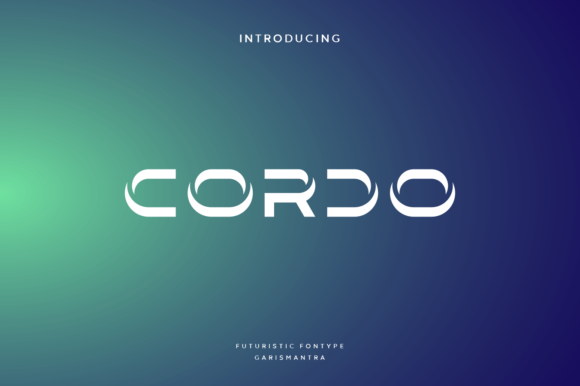
The Perfect Blend of Technology and Typography: Introducing Cordo Font
Meet Cordo Font, a sleek and modern display font that’s designed to make a statement. Whether you’re working on a web design, a business card, or any other project that requires a touch of technology, Cordo Font is the perfect choice. Its adaptability and versatility make it a valuable asset for designers, allowing you to experiment with different styles and themes without sacrificing readability or impact.
Cordo Font Key Features
- Font Family: Cordo Font is a sans-serif font family designed for modern digital interfaces.
- Character Set: The font family includes a wide range of characters, including Latin, Cyrillic, and Greek alphabets, as well as various symbols and punctuation marks.
- Font Size and Resolution: Cordo Font is designed to work well at various font sizes, from 8pt to 24pt, and is optimized for high-resolution displays (Retina, 4K, etc.).
- Unique Characteristics: Cordo Font features a clean, minimalist design with a unique blend of geometric and organic shapes, making it suitable for a wide range of applications, from digital interfaces to print materials.
Cordo Font Review
Overall, I was quite impressed with the Cordo font. Here are some of its notable features:
- ✨ Unique letterforms and distinctive personality
- ✨ Strong vertical stress, making it perfect for headings
- ✨ Highly legible, even at small font sizes
- ✨ Supports multiple weights and styles, making it versatile
- ⚠️ Limited language support, may not be suitable for multilingual designs
- ⚠️ Not as readable in certain script-based languages, such as Arabic or Hebrew
- ⚠️ Some users may find the font too condensed or dense
Overall, I would recommend Cordo font for bold, eye-catching headings and titles. While it may have some limitations, its unique personality and strong vertical stress make it a great choice for designers looking to add some flair to their designs. With careful consideration of its limitations, Cordo font can be a valuable addition to any design toolkit.
For the most out of Cordo Font in Canva, use it for headings and titles to add a touch of elegance to your designs.
For the most out of Cordo Font in Adobe Photoshop or Illustrator, use it for typography-heavy designs, such as magazine covers or brochures.
For the most out of Cordo Font in PowerPoint or Word, use it for presentations or documents that require a touch of sophistication and elegance.
Cordo Font is ideal for:
– Magazine covers and brochures
– Business cards and letterheads
– Presentations and documents
– Web design and development
Use Cordo Font to add a touch of elegance and sophistication to your designs.
Alternatives to Cordo Font for Designers
Comparison to Cordo Font: Montserrat has a more geometric and structured feel compared to Cordo Font’s rounded edges. Montserrat is also more versatile, with a wider range of weights and styles, making it suitable for various design projects.